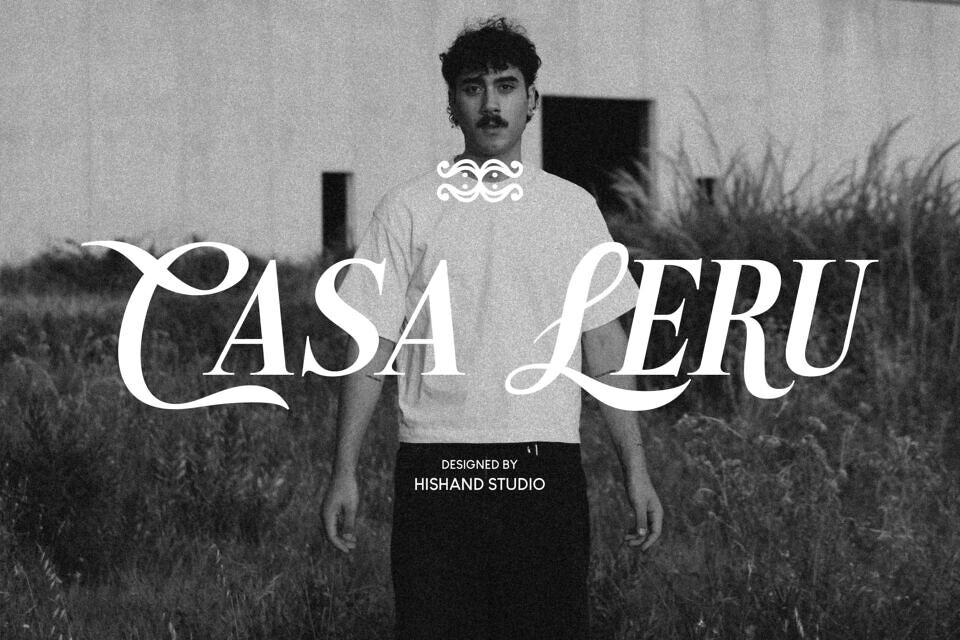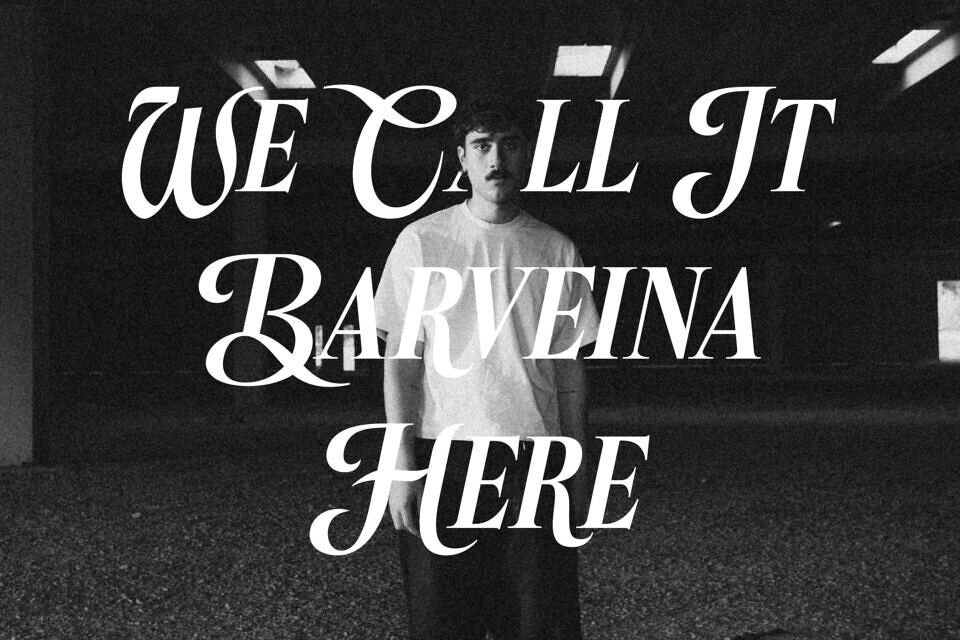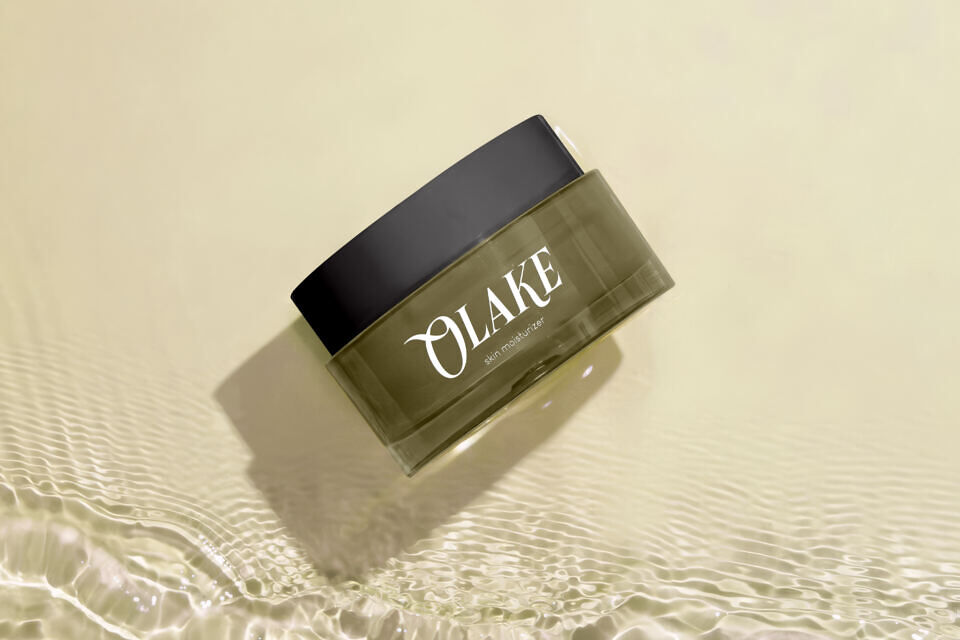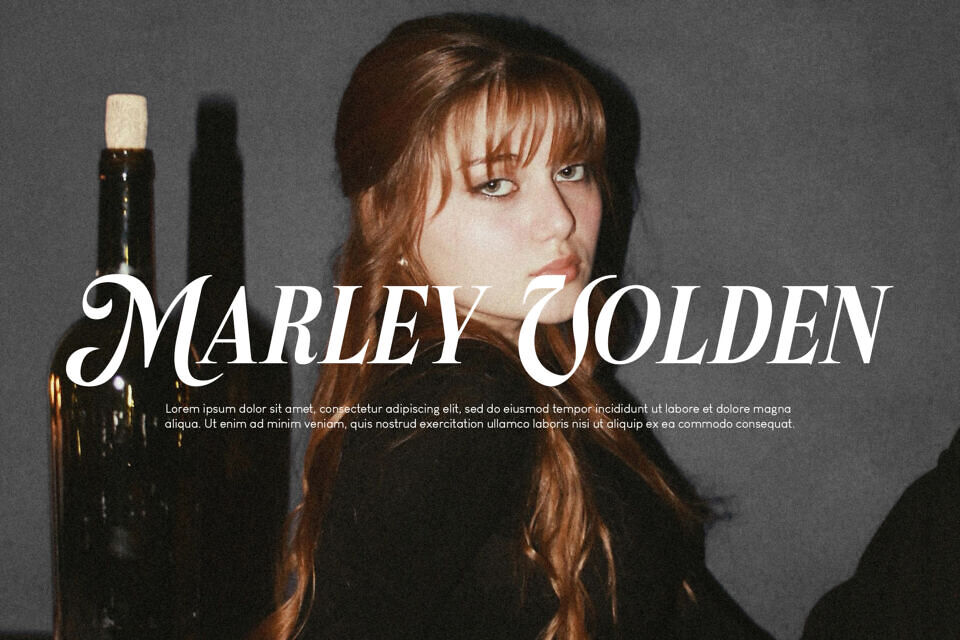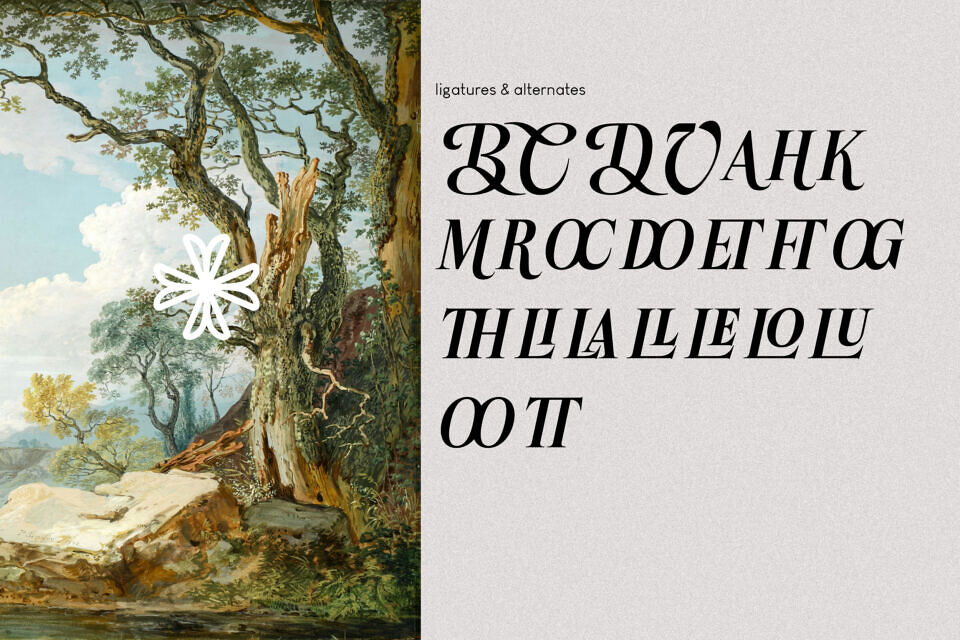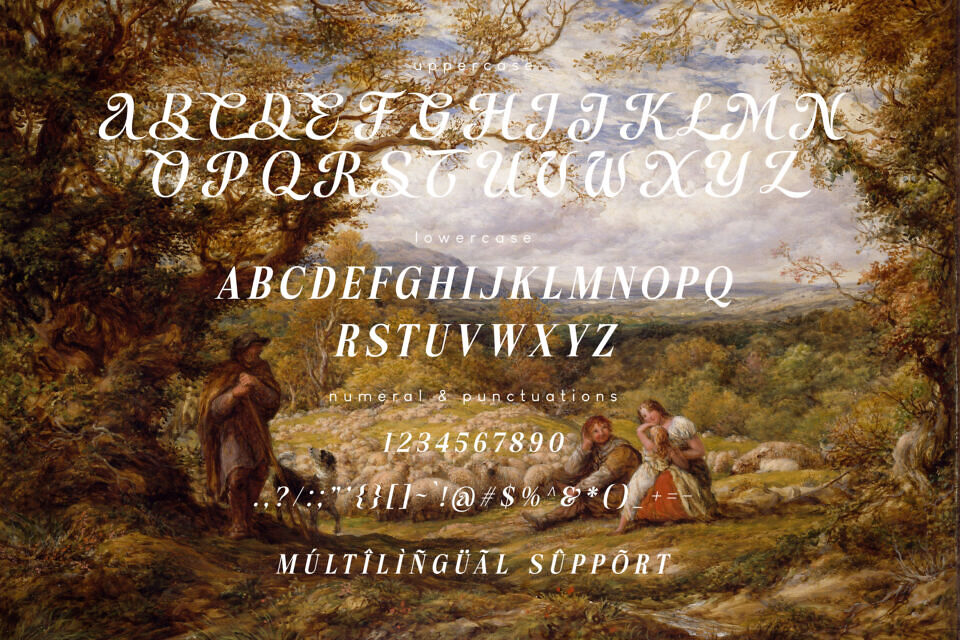
Casa Leru Font
Casa Leru Elegant Font is a sophisticated typeface that strikes a flawless balance between the structured elegance of a Serif and the fluid grace of a Script. Designed to evoke a sense of high-end luxury, it merges sharp, refined stems with delicate, handwritten flourishes.
This intentional contrast creates a visual rhythm that feels both architectural and organic, making it an ideal choice for brands that want to communicate a deep sense of heritage paired with a modern, poetic soul. In an era where design often feels mechanized, Casa Leru brings back the human touch without sacrificing professional precision.